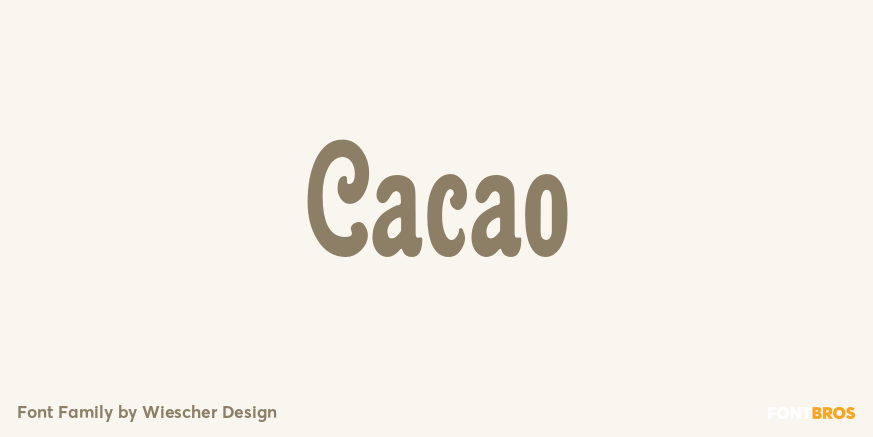
Cacao
About Cacao
Cacao is another one of my ?found fonts?. I found this one in an old advertising for a French cocoa drink. Since I am a vervent lover of cocoa, I will give you my recipe for a normal coffee mug full of delicious hot cocoa. Mix three heaped teaspoons…